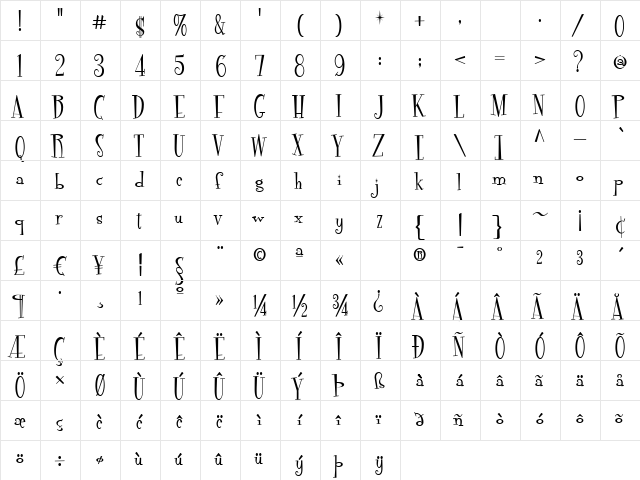
QK Katie Regular Font Preview
QK Katie Regular
QK Katie Regular Font Details
| Foundry | Font Diner, |
| Designer | Stuart Sandler |
Design Context for QK Katie Typeface
QK Katie is a composed and adaptable typeface that performs quietly and consistently across a wide range of design contexts.